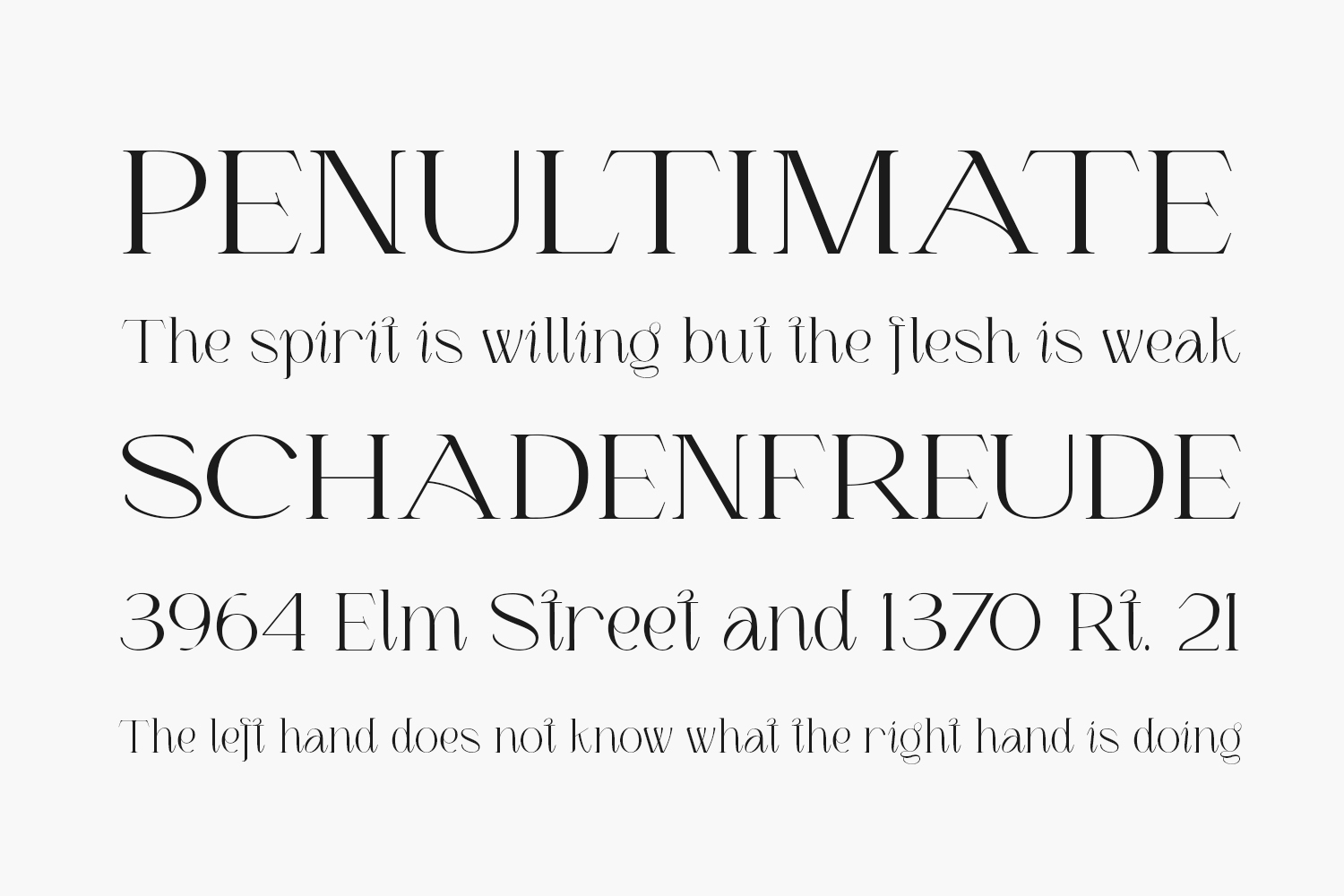
Louis Felligri Free Font is a modern display serif font designed by Jolicia Type Foundry. This font features sharp lines, strong contrasts, and a contemporary feel that makes it perfect for modern design projects. The font is characterized by its tall and narrow letterforms, which create an elegant and sophisticated look. Its serifs are sharp and angular, giving the font a distinctive appearance. It is available in two styles: regular and bold, both of which have a unique and eye-catching designs.